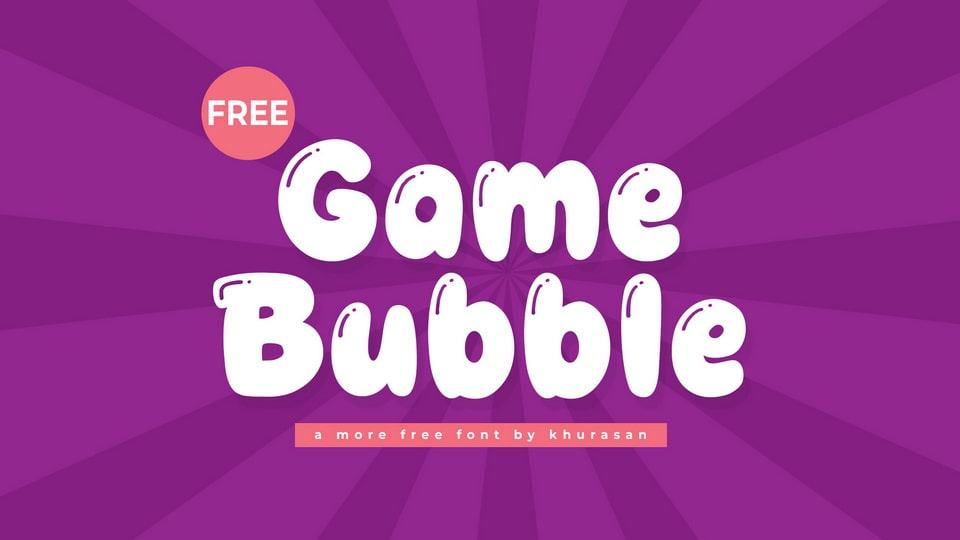
Download Game Bubble font, a bold and playful hand-crafted bubble typeface designed to bring fun and energy to your designs with its chubby letterforms.